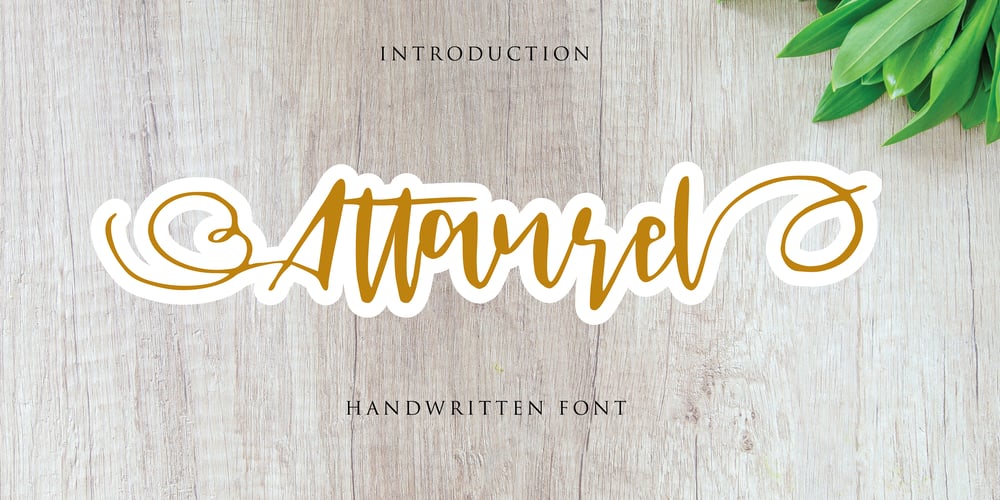
Attaurel Font Family was designed by Mariyana and published by Goodigital13. Attaurel contains 1 styles and family package options. They works perfect for you who needs a typeface for headline, logotype, apparel, invitation, branding, packaging, advertising etc. The combination of the font will make your design more beautiful and luxury. This font is suitable for any design like wedding, branding, quotes, and etc.